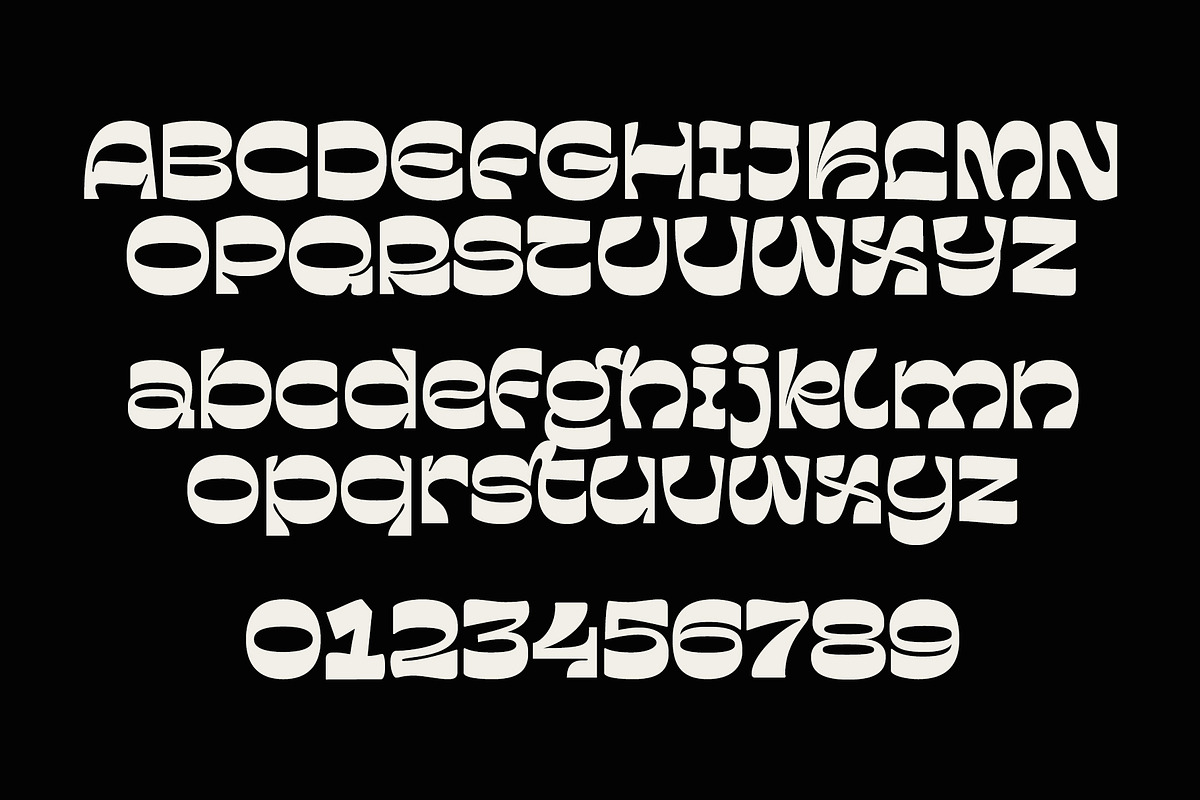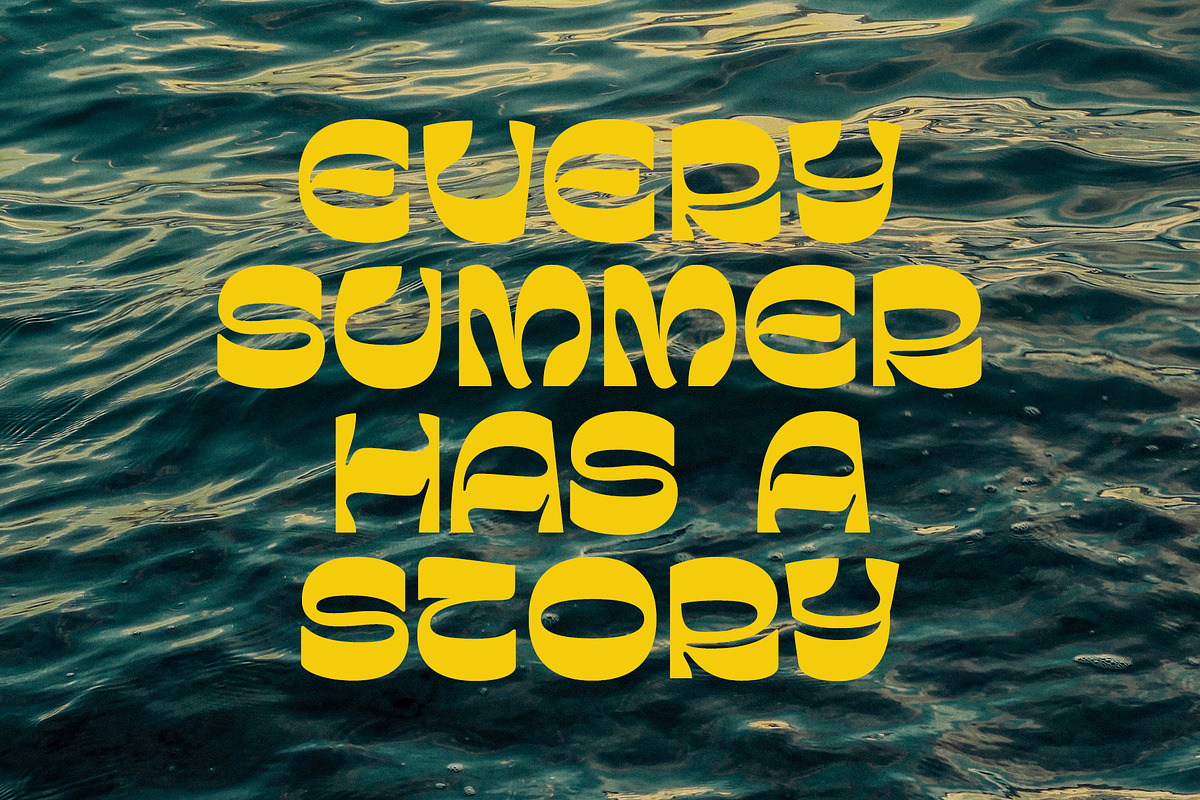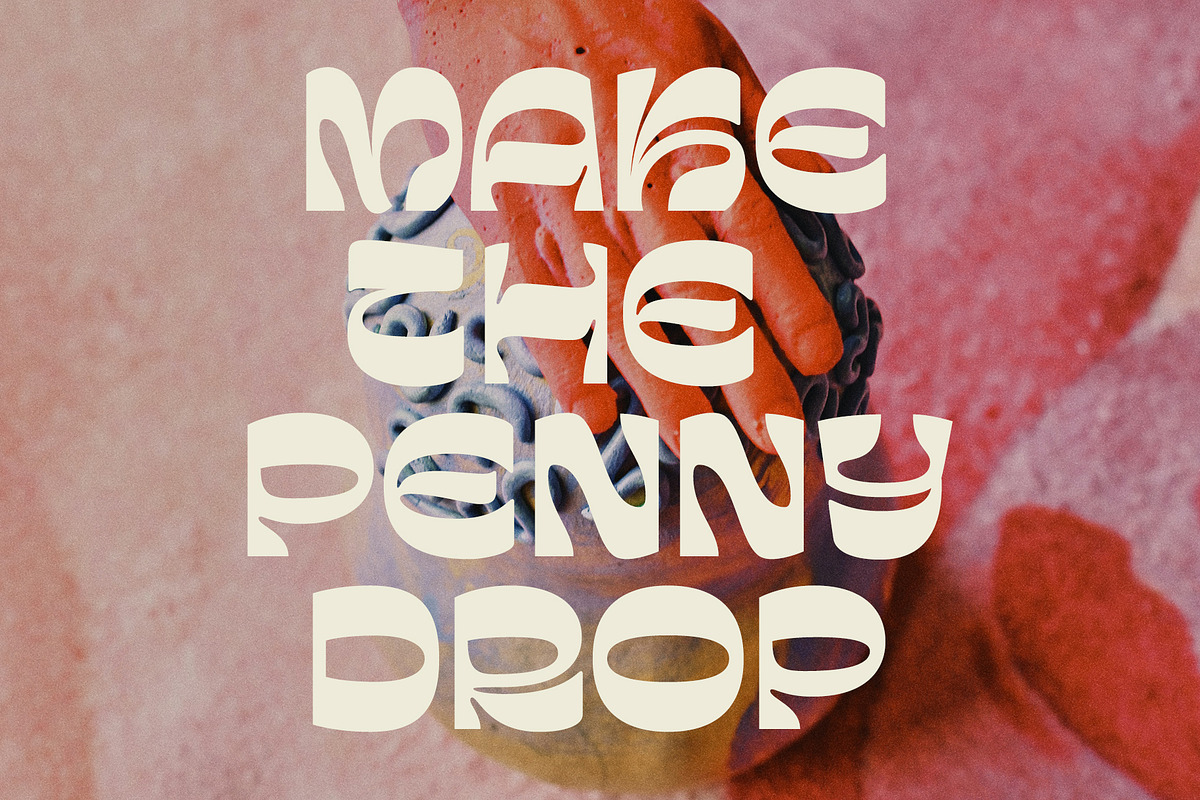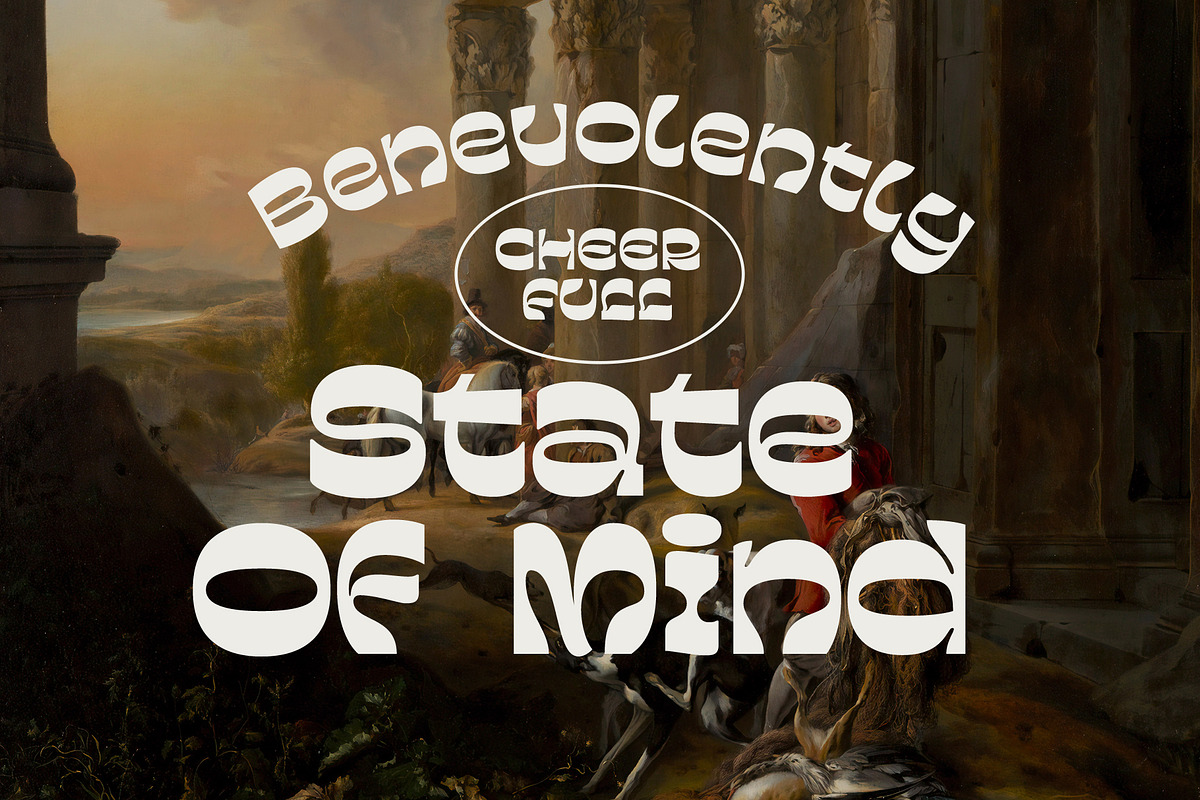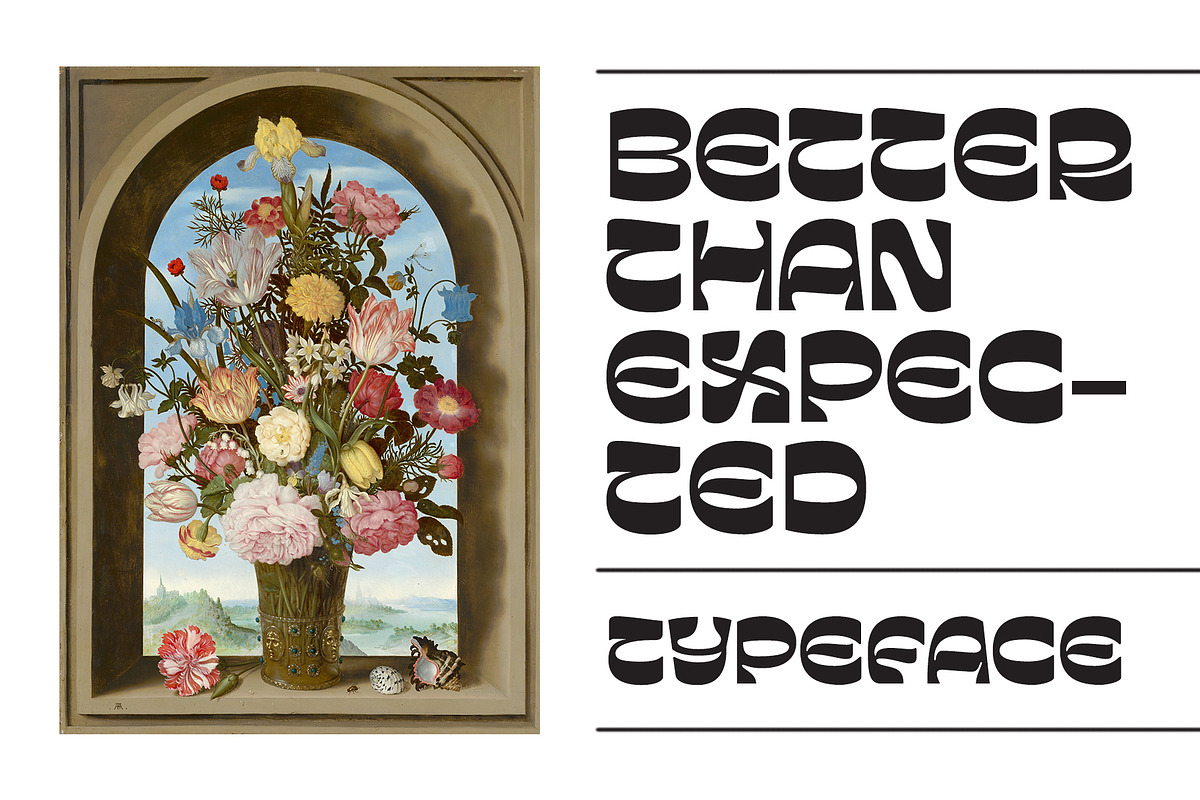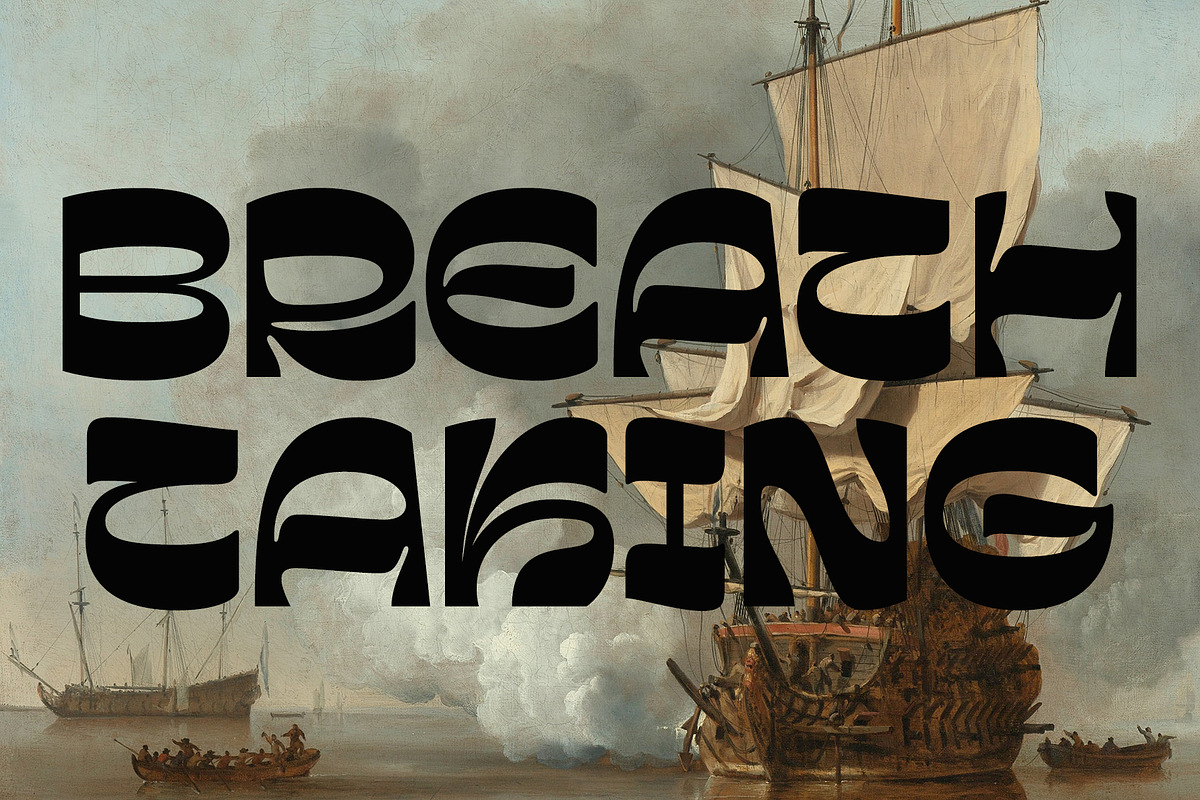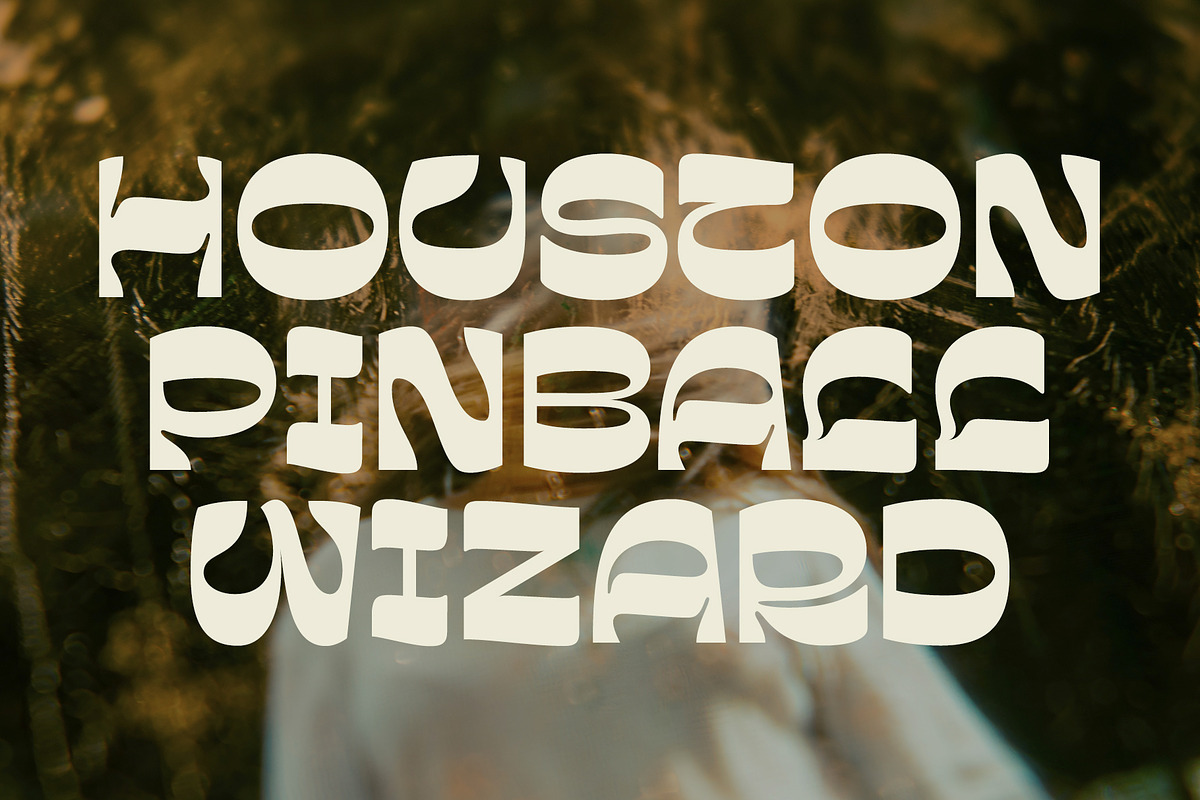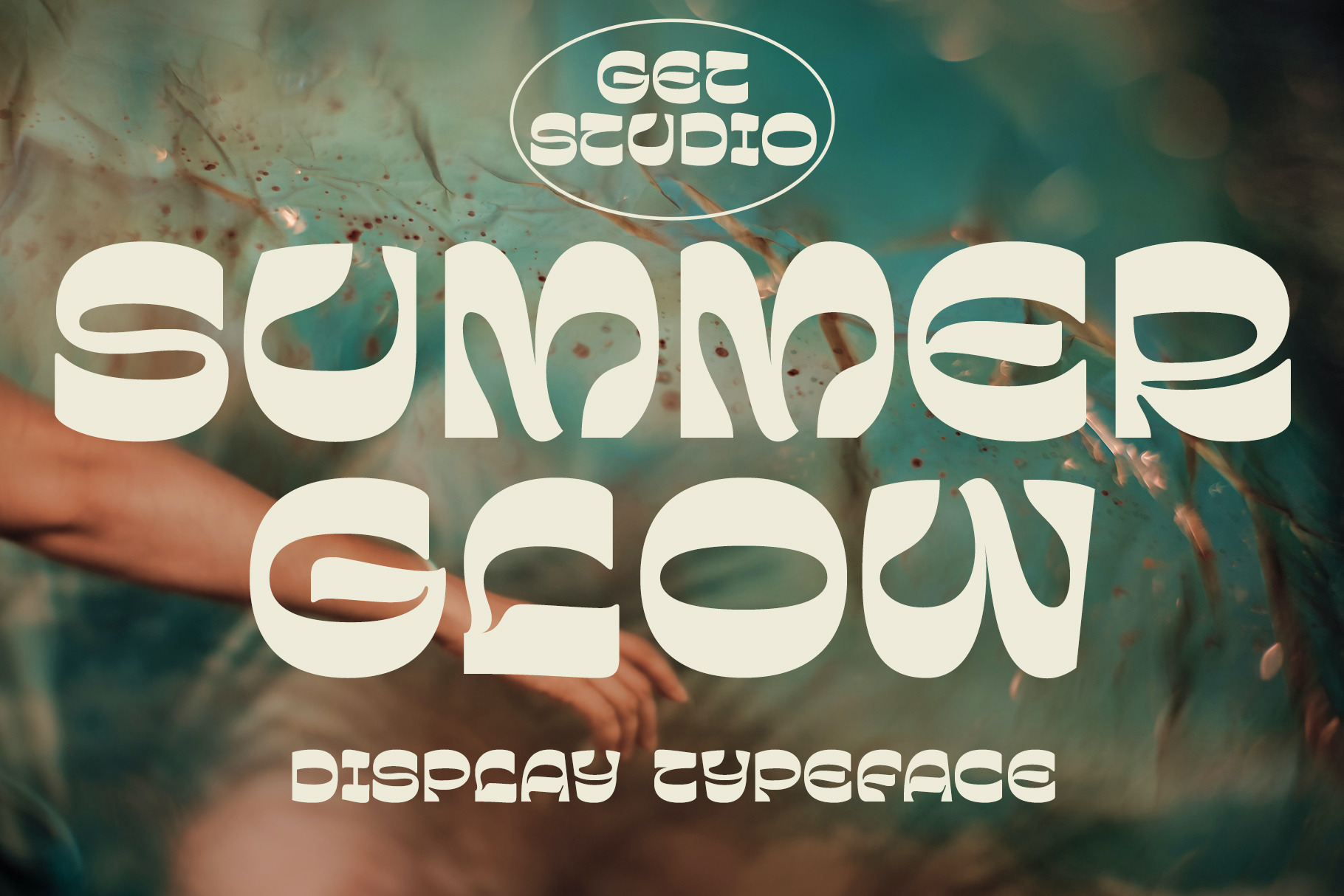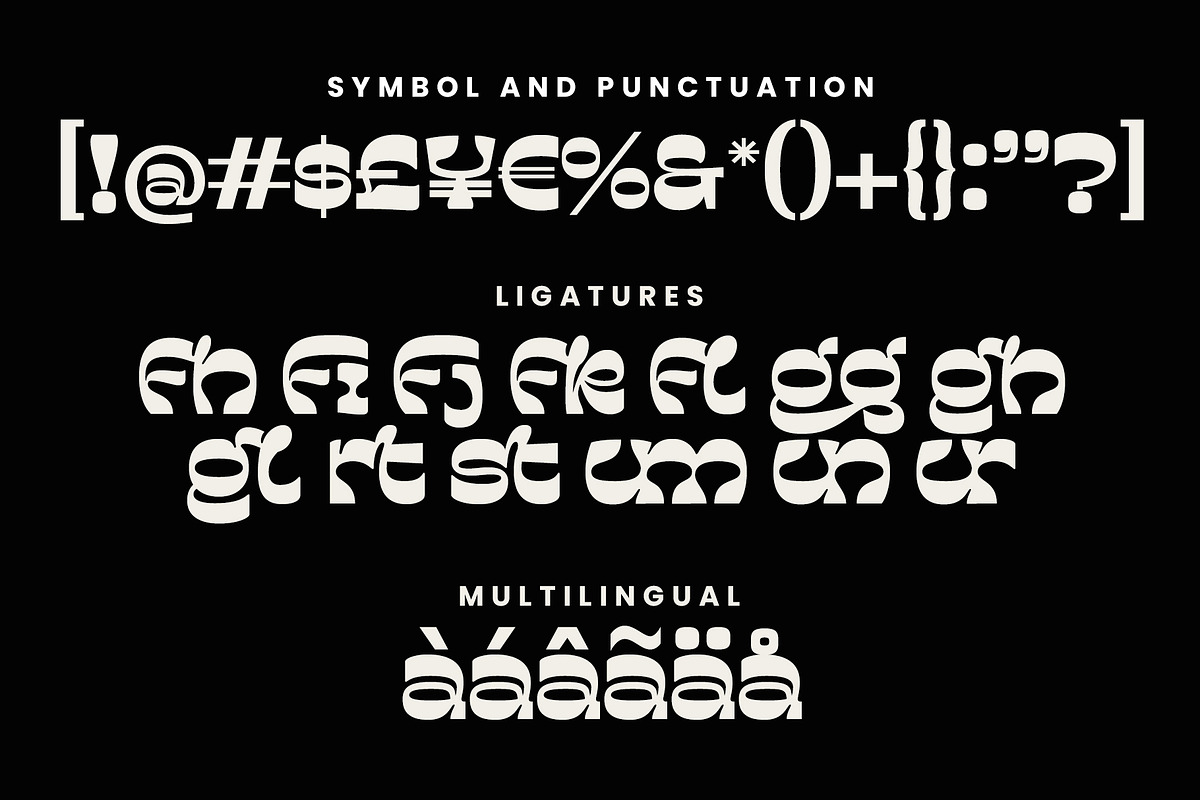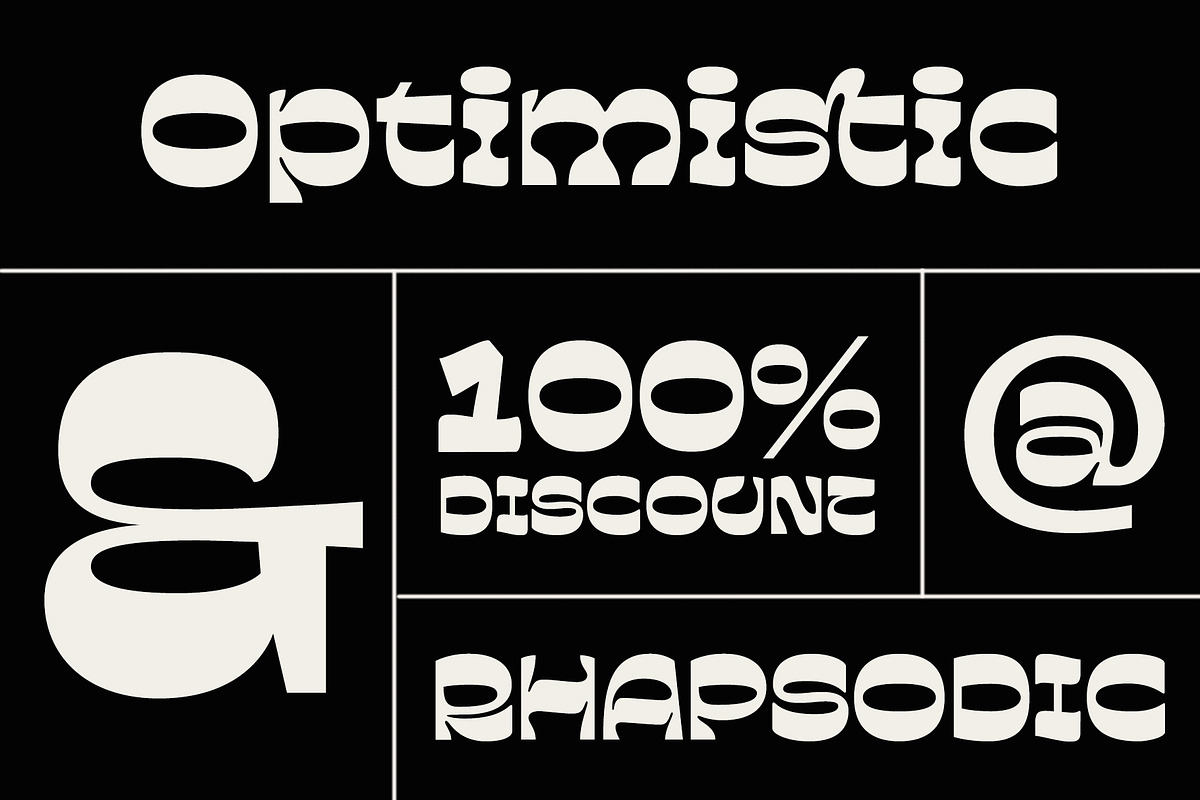
Summer Glow - Display Typeface
Summer Glow is a psychedelic modern vintage display typeface with reverse contrast. It comes with unique lower and uppercase plus numbers, punctuation & multilingual letters.
You can use it as a logo, badge, insignia, packaging, headline, poster, t-shirt/apparel, greeting card, and wedding invitation.